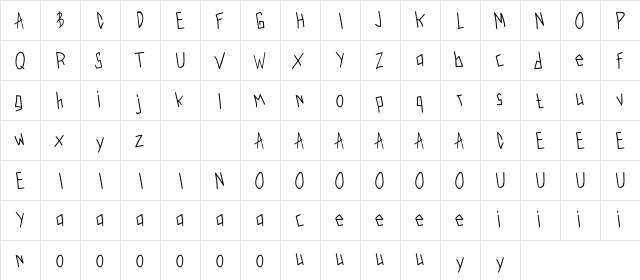
Trumvolion Regular
Design Context for Trumvolion Typeface
Trumvolion is a composed and adaptable typeface that performs quietly and consistently across a wide range of design contexts.